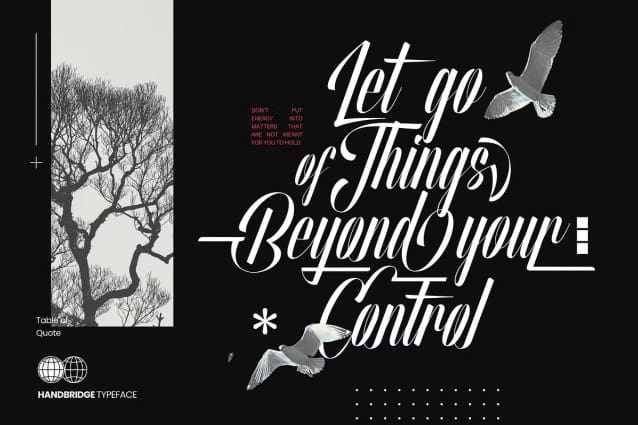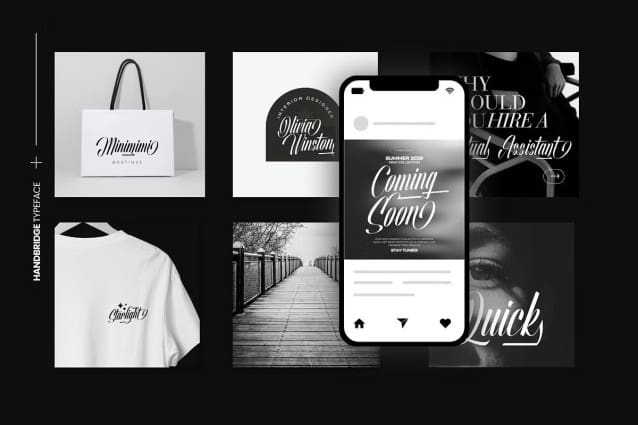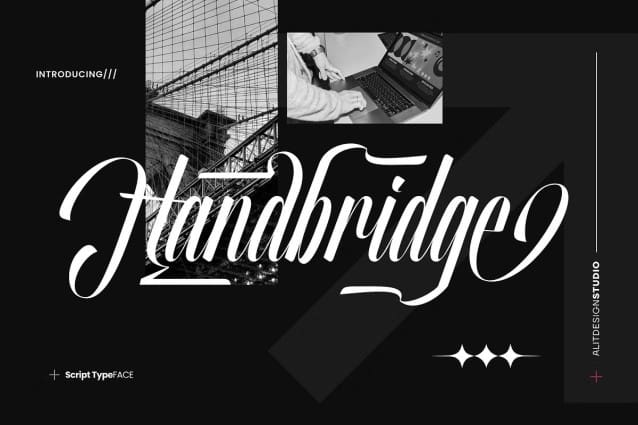
Handbridge Script Font
Handbridge Script Font, a dynamic and fierce script that takes your design projects to new heights. This font is crafted for those who seek speed, fluidity, and a touch of elegance in their typography.
Fierce Script: Exude boldness and confidence with every letter.
Speedy: Designed for a fast-paced world, Handbird Script adds a sense of motion and urgency to your text.
Dynamic: Infuse your projects with energy and vitality, making your message stand out.
Ligatures: Seamlessly connect letters for a smooth and natural handwriting effect.
Swash: Enhance your design with elegant swashes that add flair and sophistication.
722 Characters: A comprehensive set of characters to cover all your typographic needs, including multilingual support and special symbols.
Whether you’re creating eye-catching headlines, stunning logos, or captivating social media posts, Handbridge Script Font delivers the impact and versatility you need. Embrace the power of dynamic typography with Handbridge Script, where speed meets style.